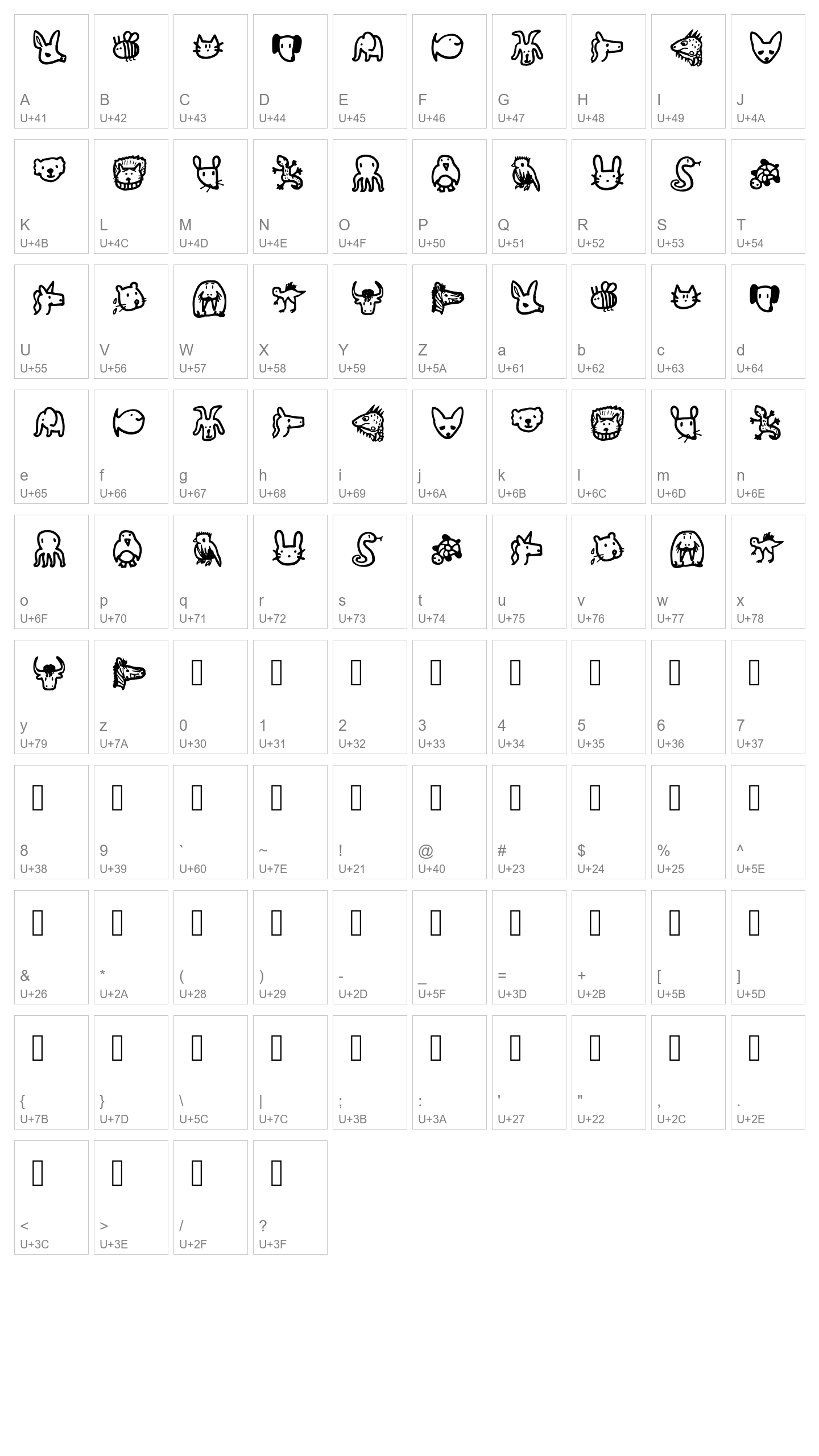
Animals
A cute animal alphabet including familiar, less familiar and mythical beasts! Free for personal use except tattoo. Please contact me for a tattoo or commercial licence. Thanks! :)